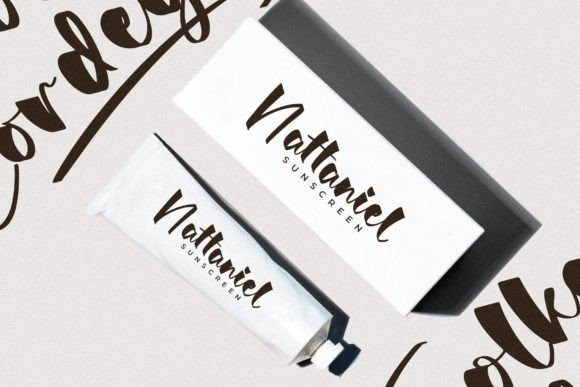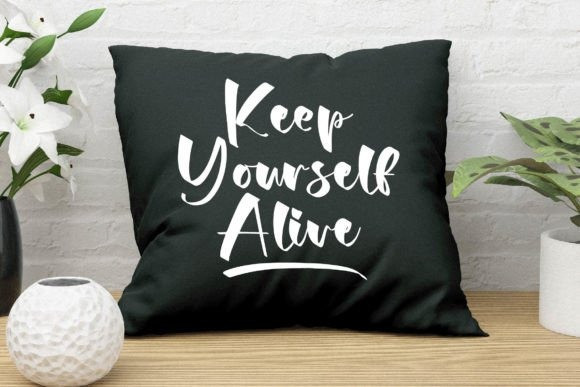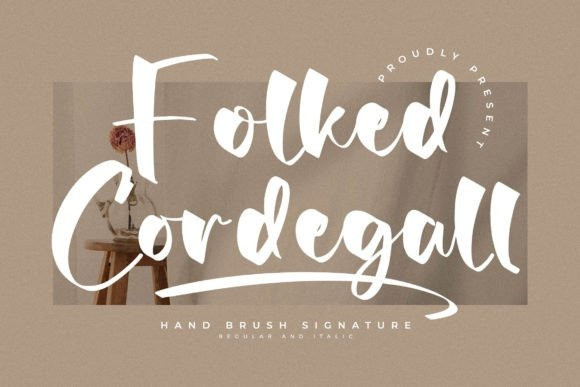
Folked Cordegall Font
Folked Cordegall Font is a flowing signature brush font, described by an elegant touch, perfect for your favorite projects. Fall in love with its incredibly distinct and timeless style and use it to create spectacular designs!